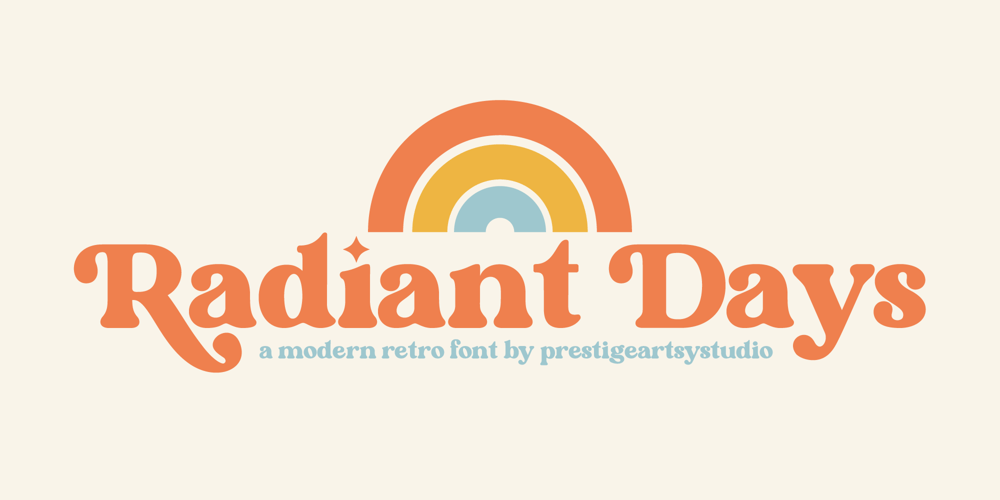
Radiant Days Font Family was designed by Zak M and published by Prestige Artsy Studio. Radiant Days contains 1 styles and family package options. Spice up your designs with Radiant Days an elegant retro bold serif with its lovely rounded curves that will give a modern retro touch to your designs. Radiant Days with its alternates will provide your project. Whether you are a logo designer, or looking for a great bold header to your designs, retro quotes, Radiant Days will definitely make your work stand-out. To access the ligatures and the stylistic alternates make sure they are ON in the OpenType Feature option.Supported languages: Western European Central European South Eastern European South American Oceanian